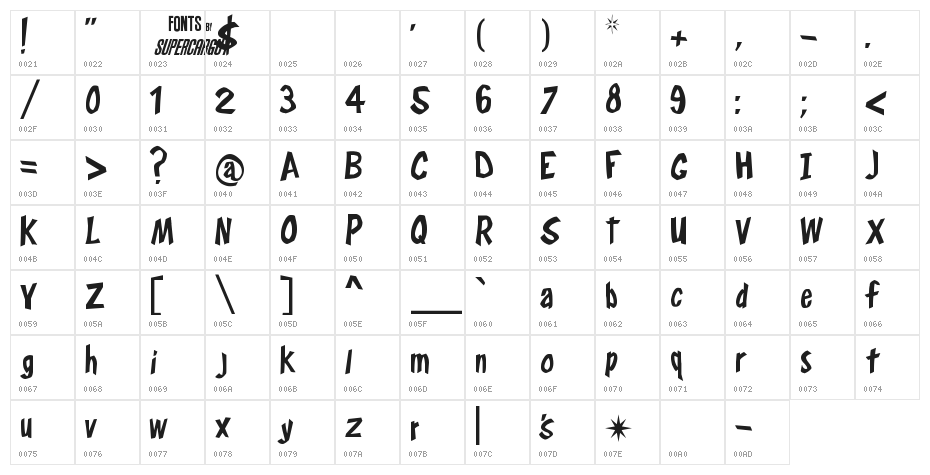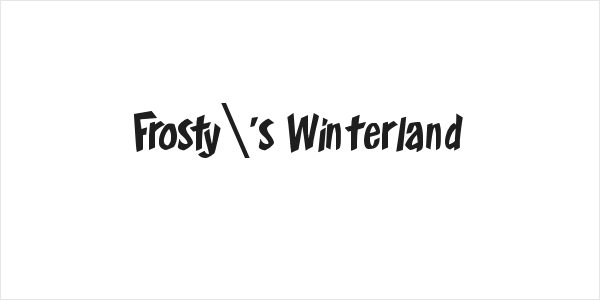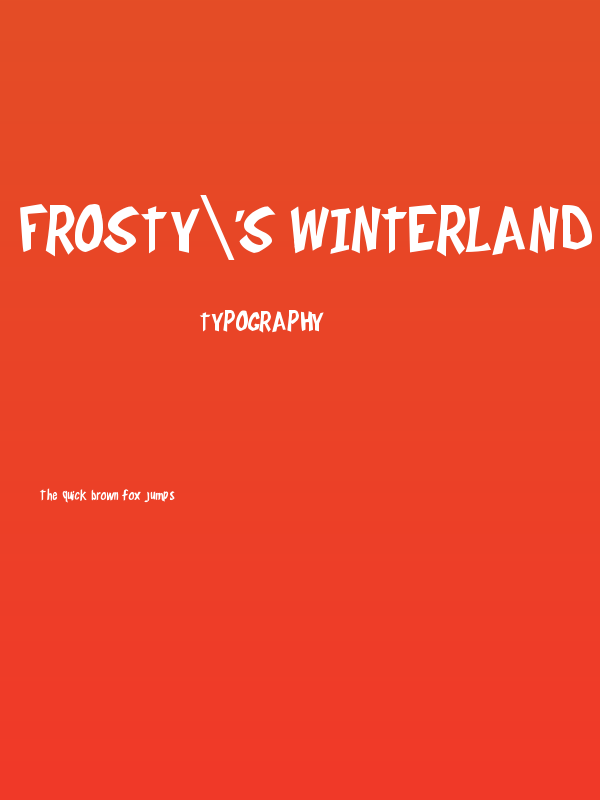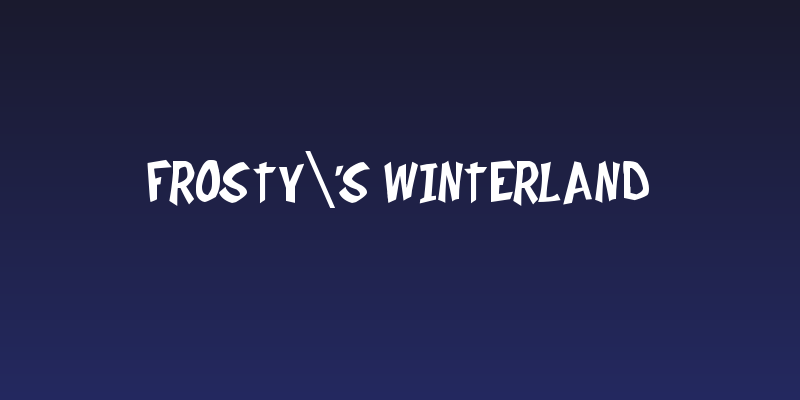
Frosty's Winterland Font
Frosty's Winterland Description
This font features a playful and whimsical style, characterized by its irregular and dynamic letterforms. The uppercase and lowercase letters exhibit a hand-drawn quality, with varying stroke widths that add to its lively appearance. The numbers and special characters maintain this energetic style, making it suitable for creative and informal designs. The overall look is bold and eye-catching, perfect for capturing attention in a fun and engaging way.
| Proposed Projects | Ideal for children's book covers, playful branding, holiday cards, and festive event invitations. |